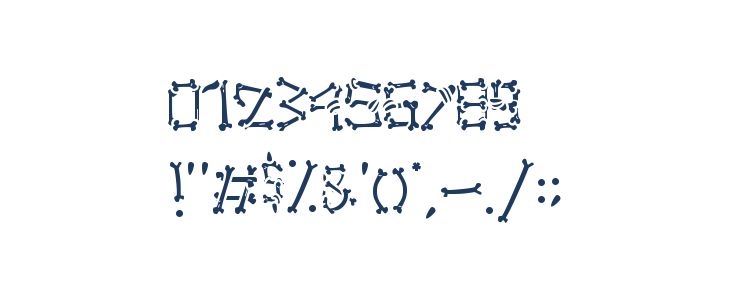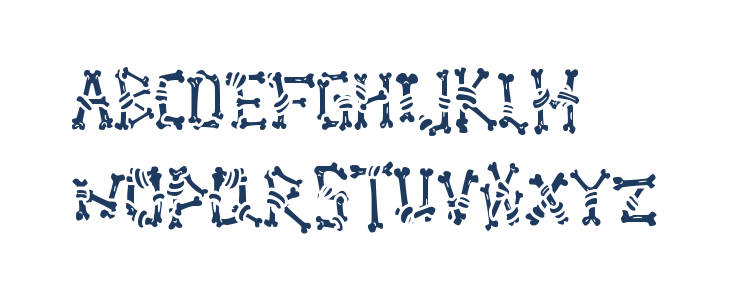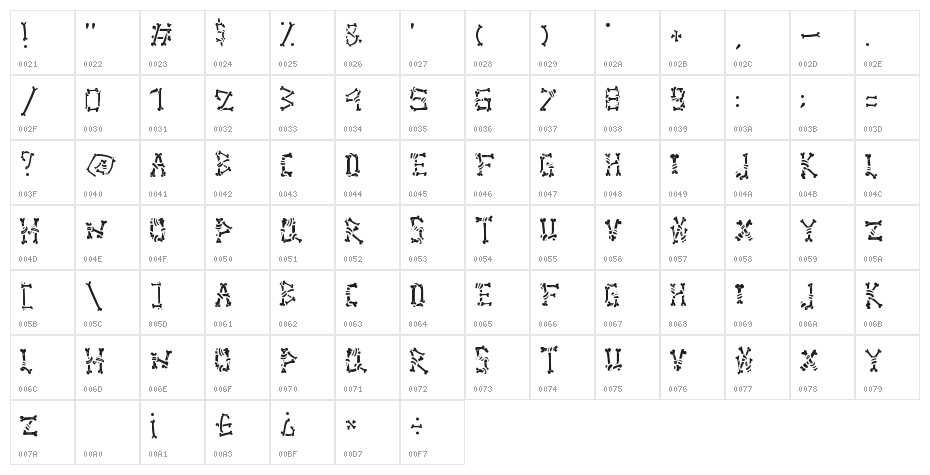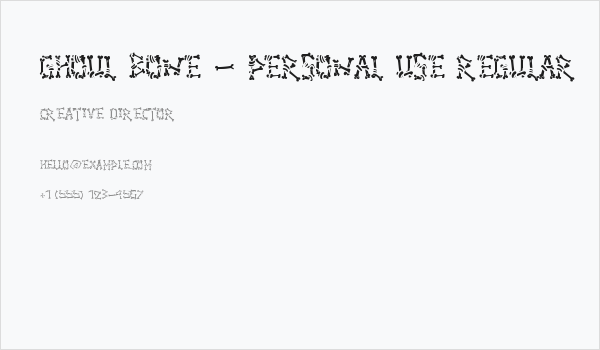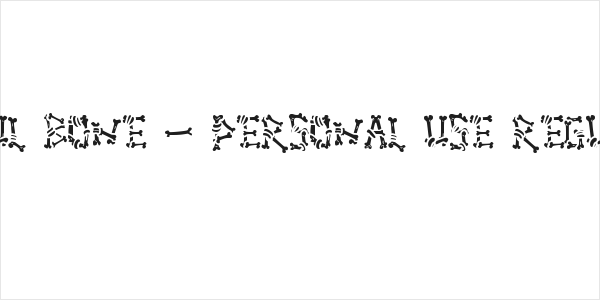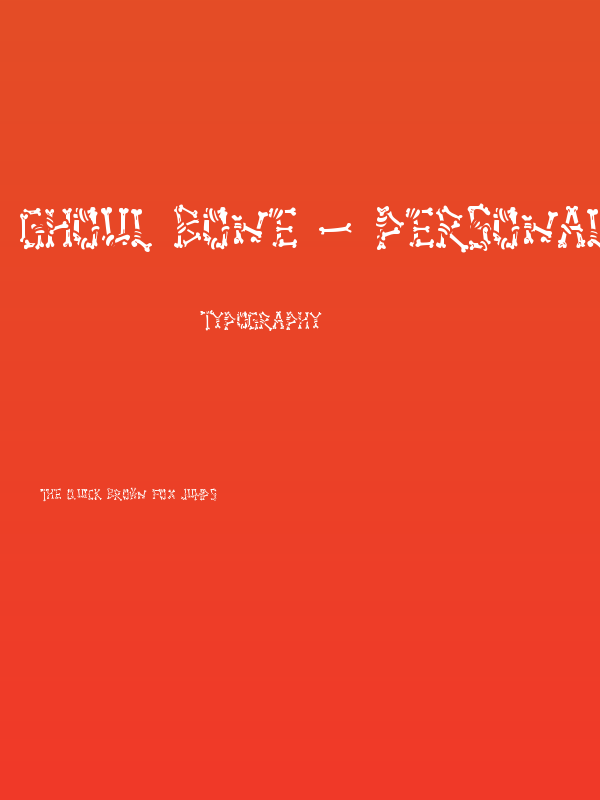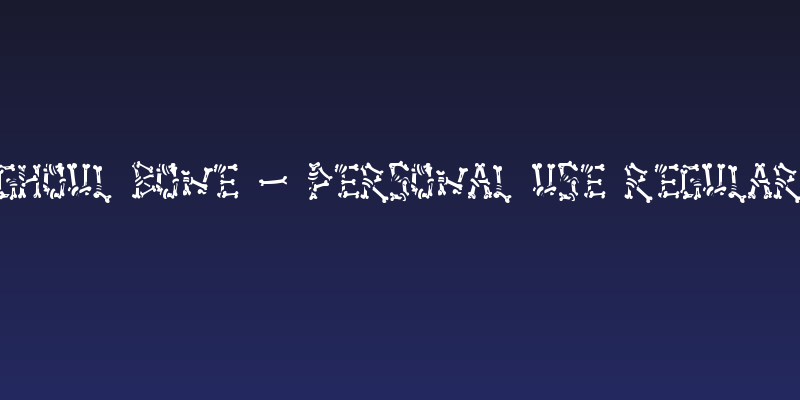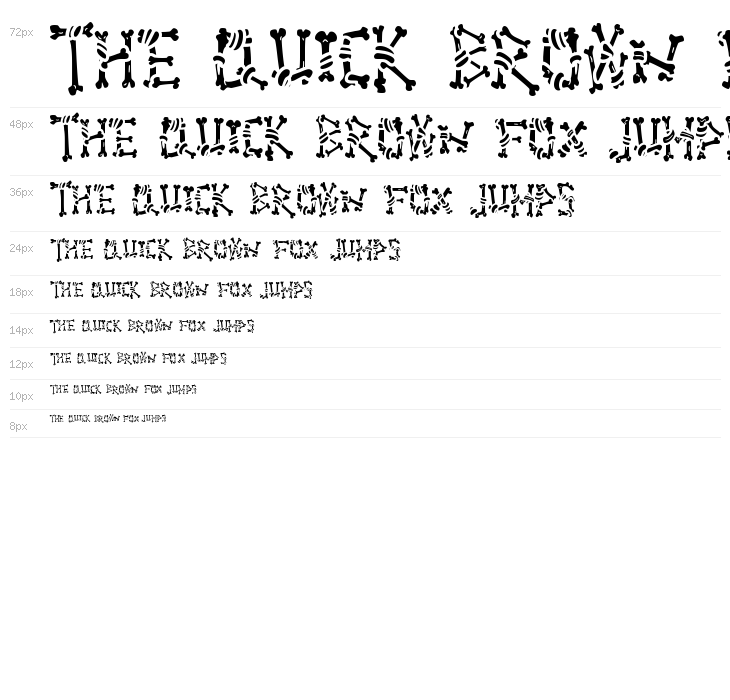
Ghoul Bone - Personal Use Regular Font
Ghoul Bone - Personal Use Regular Description
A playful decorative font constructed from stylized bone shapes, featuring irregular lines and whimsical details that evoke a spooky or Halloween-inspired theme. The characters are bold and highly legible despite their unconventional structure.
| Overall Style | Decorative, Playful, Spooky |
| Use Case | Headlines, Posters, Logos, Event Titles |
| Proposed Projects | Halloween invitations, horror-themed posters, party flyers, children's spooky books, themed event branding. |